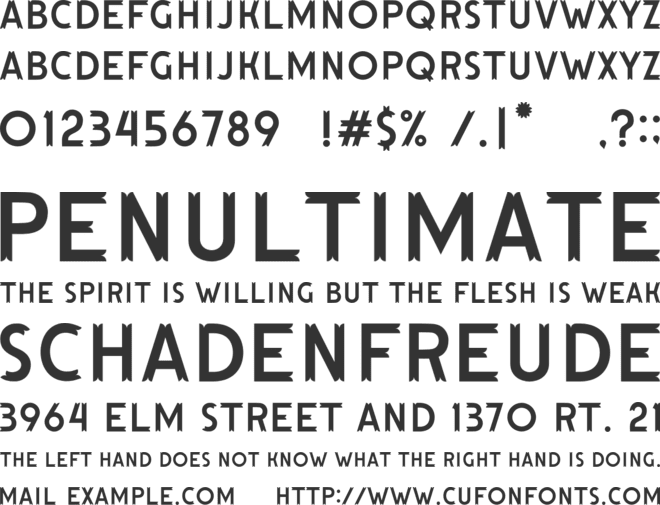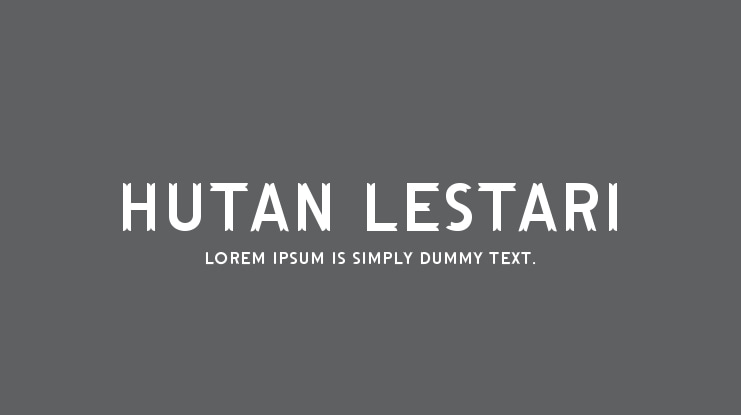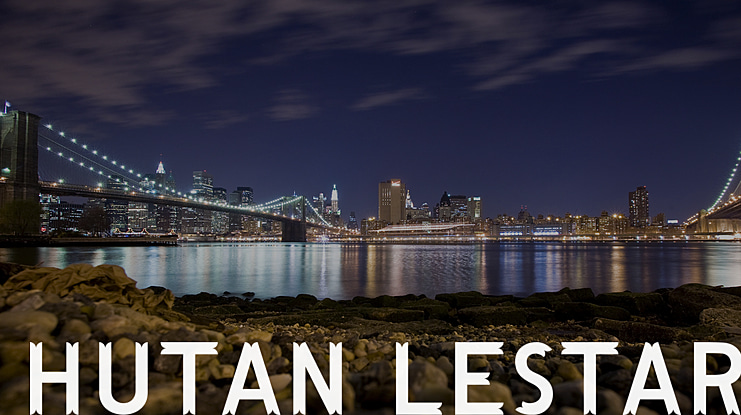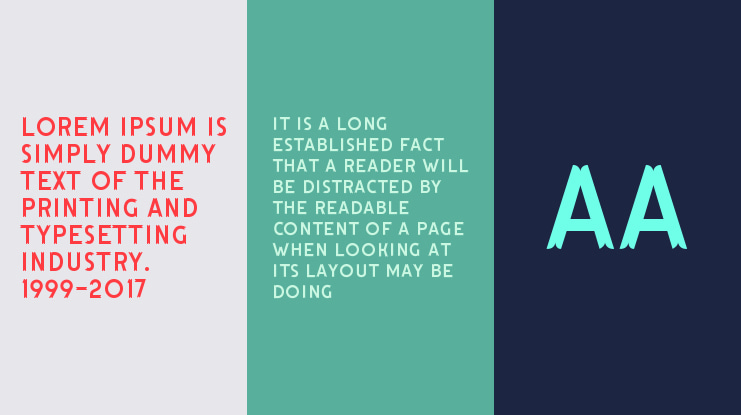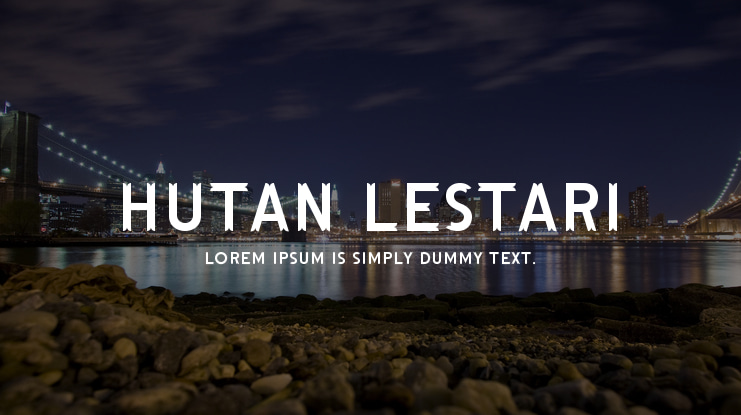
Hutan Lestari Font
'Hutan Lestari' is the second version of 'Hutan' font. Hutan Lestari means 'preserved forest'. The inspiration comes from the shape of young leave bud. I created the second version after the previous font had been used in a publication of volunteers first gathering on Earth Hour, Surabaya, East Java, Indonesia. In seeing the inferior previous font's quality, i feel responsible to create a better one.